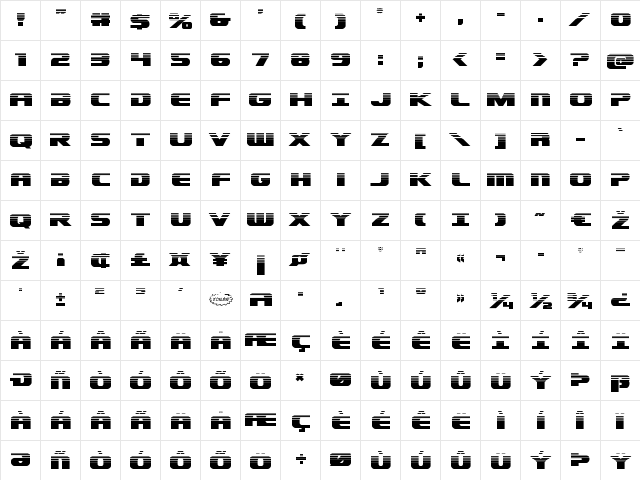
Dekaranger Halftone Regular
Design Context for Dekaranger Halftone Typeface
Dekaranger Halftone is a composed and adaptable typeface that performs quietly and consistently across a wide range of design contexts.